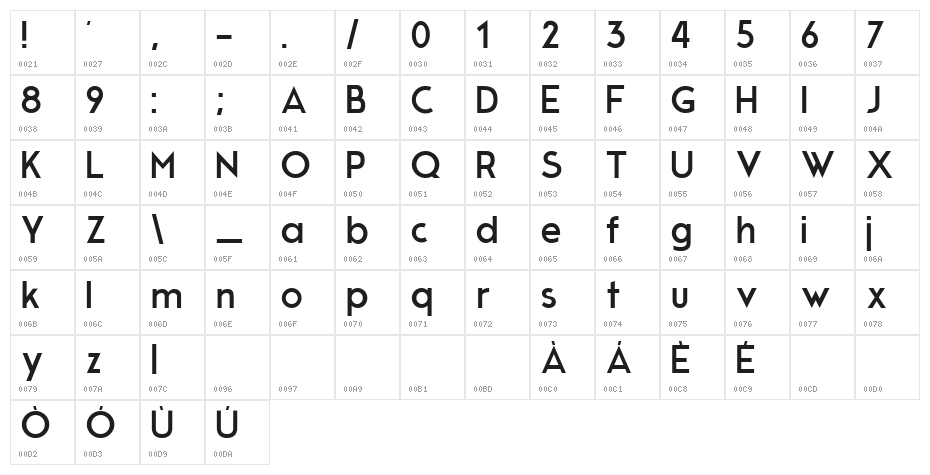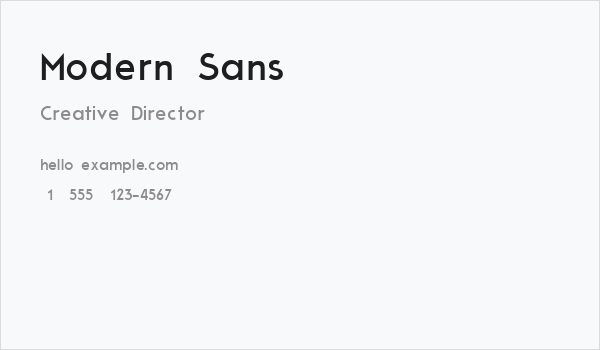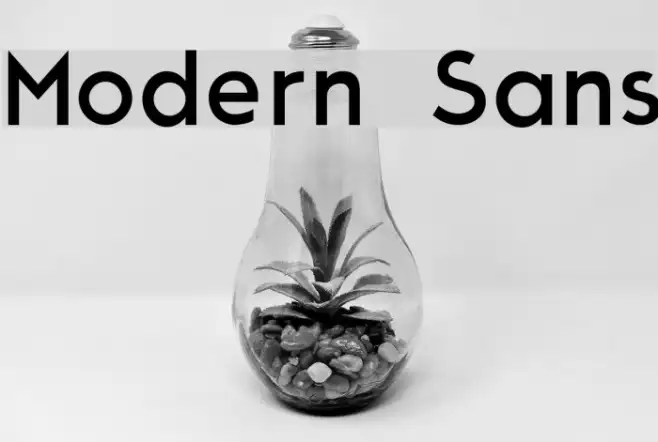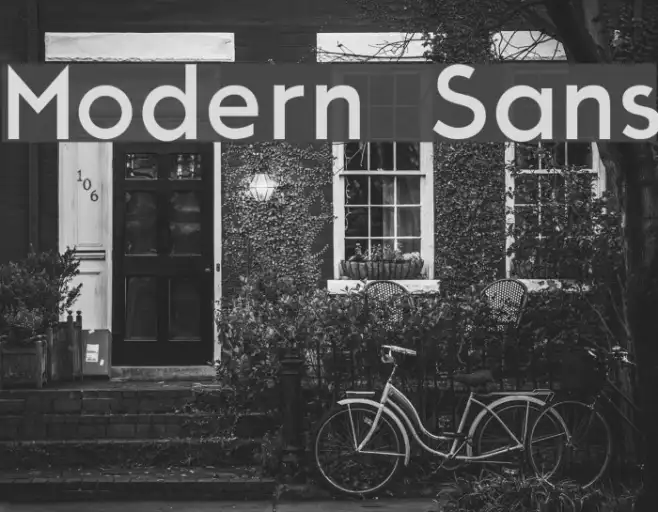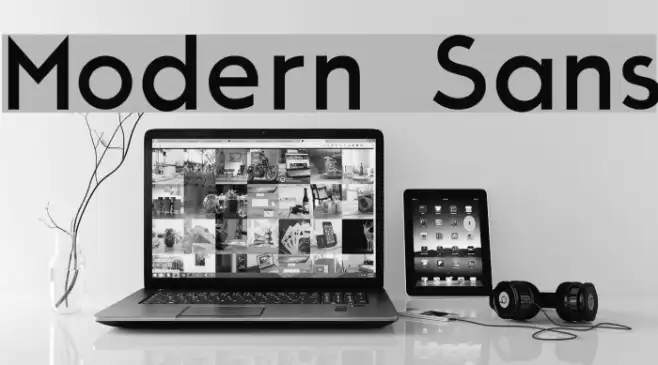
Modern Sans Font
Modern Sans Description
This font features a clean and modern sans-serif design, characterized by its geometric shapes and uniform stroke widths. The uppercase letters are bold and assertive, while the lowercase letters maintain a harmonious balance with slightly rounded edges. The numerals are clear and easily distinguishable, making them suitable for a variety of applications. The special characters are designed with the same attention to detail, ensuring consistency across all glyphs. This font's simplicity and clarity make it highly versatile and suitable for both digital and print media.